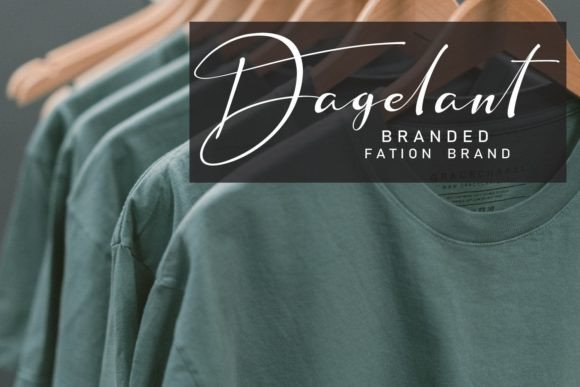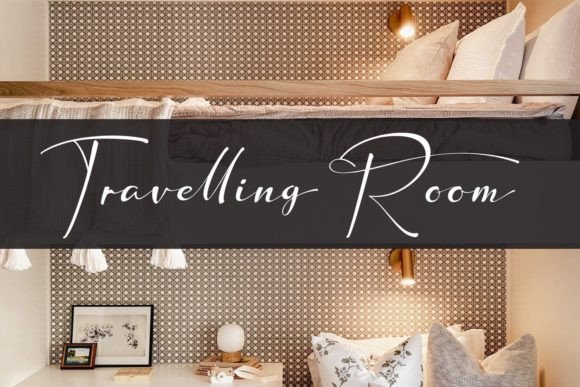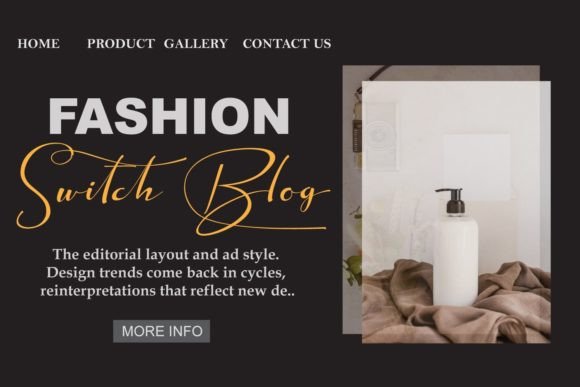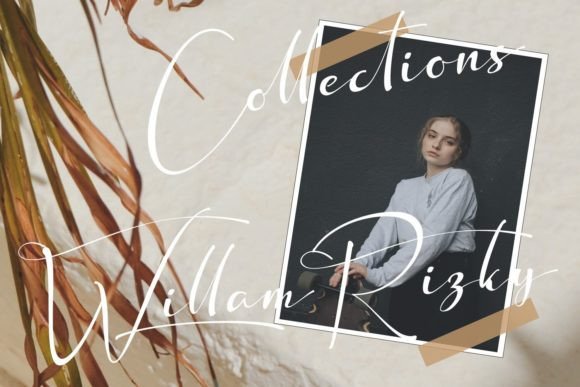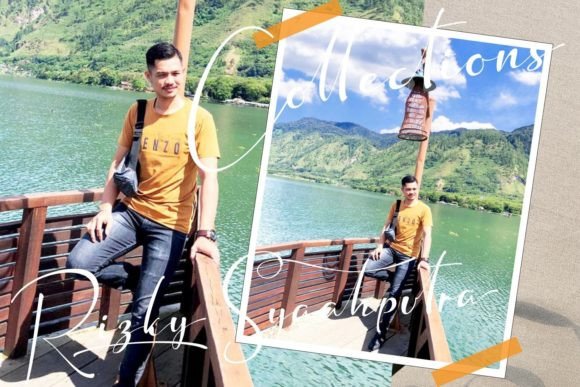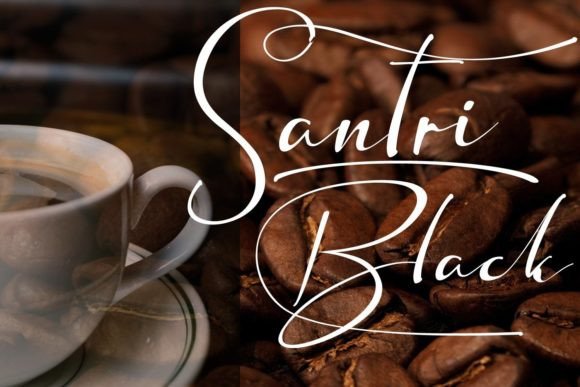
Introduction to Santri Cool Font
Have you ever been stuck on a creative project, desperately searching for the perfect font to bring your idea to life? I’ve been there too. The struggle is real, especially when you’re working on a project that requires a unique touch. That’s where the Santri Cool Font comes in – a game-changer for designers and creatives alike.
This beautiful handwritten signature font boasts a cool calligraphy style that’s perfect for creating handwritten style logos, wedding stationery, photographer watermark logos, modern websites, and more. With its PUA encoded feature, you can easily access all the amazing glyphs and ligatures, making it a valuable design resource for any creative project.
Key Features of Santri Cool Font
- Unique and stylish design, perfect for creative projects and designs that require a modern touch.
- High-quality font with a transparent background, ideal for use in digital designs and graphics.
- Santri Cool Font is a creative and versatile font that can be used in a wide range of design projects, from logos to brochures and more.
Honest Review: Santri Cool Font
I recently stumbled upon the Santri Cool Font, and I have to say it’s a unique addition to my design resource library. The high quality of the font makes it perfect for a creative project that needs a bold statement.
- What works well: ✨ The font’s modern aesthetic makes it suitable for a wide range of design applications, from digital displays to print materials.
- What works well: ✨ The font’s high quality ensures that it will look great even at large sizes, making it perfect for headlines or titles.
However, I do have some reservations about the font’s limitations. ⚠️ The font’s limited character set may make it less suitable for projects that require a large number of characters, such as long paragraphs of text.
Overall, the Santri Cool Font is a solid choice for designers looking for a unique and high-quality font to add some flair to their creative project. While it may have some limitations, its free download and transparent background options make it a valuable resource for any design library.
Santri Cool Font
Tips for Getting the Most Out of Santri Cool Font
For the best results, use the Santri Cool Font in creative projects that require a unique and eye-catching design. This font is perfect for headings, titles, and other text elements that need to stand out.
The Santri Cool Font is ideal for:
- Graphic design projects, such as posters, flyers, and brochures.
- Web design projects, including websites and landing pages.
- Print design projects, such as business cards and letterheads.
Alternatives to Santri Cool Font
Pacifico Font is a beautiful, elegant script font ideal for creative projects, such as wedding invitations, birthday cards, or any other design where a touch of sophistication is required. It’s available for free download and features a transparent background, making it easy to use in various design scenarios. Compared to Santri Cool Font, Pacifico is more refined and sophisticated, suitable for high-quality projects that demand a level of elegance.
Great Vibes Font is a modern, stylish font perfect for designers looking for a unique and creative resource. It’s a high-quality font that’s free to download and features a transparent background, making it easy to use in various design projects. Compared to Santri Cool Font, Great Vibes is more modern and stylish, suitable for projects that require a touch of sophistication and elegance.